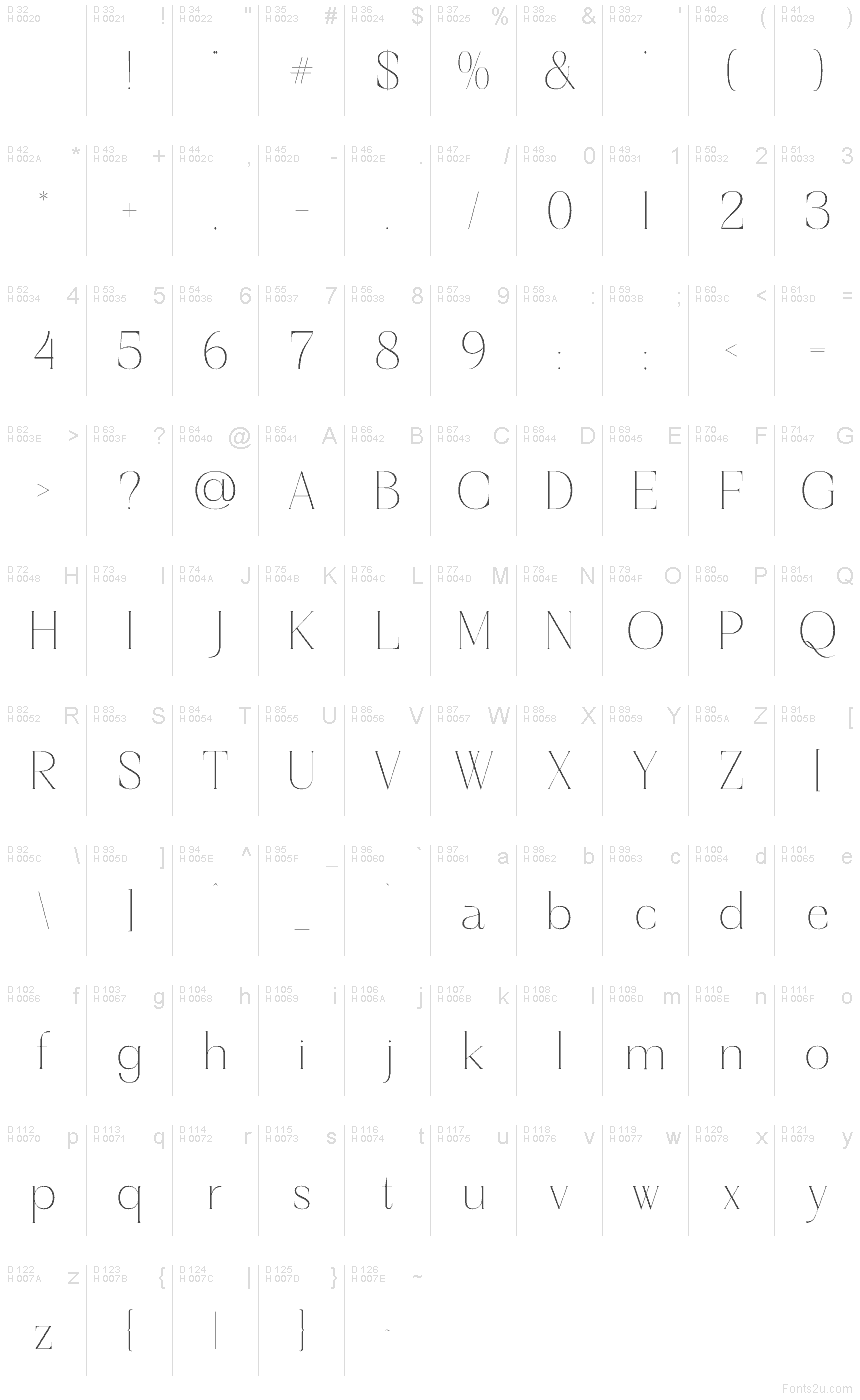
Haloyen
Haloyen font by Storytype Studio combines elegance and sophistication into a contemporary serif style, finished off with light weight. Refined in the truest of senses, it introduces a gracefully balanced selection of letters that hypnotize when presented together. Minimalistic in nature, its excellency looks just as good alone as a title or headline or coupled elegantly with other design elements.
Designers can explore Haloyen’s capabilities for free within branding projects, stationery designs, business cards, letterhead designs, invitation and greeting cards, elegant magazines and newspapers etc. Its sophisticated appearance is also ideal in logo ideas for jewelry brands or fashion businesses as well as packaging designs for perfume bottles or luxury items boxes.